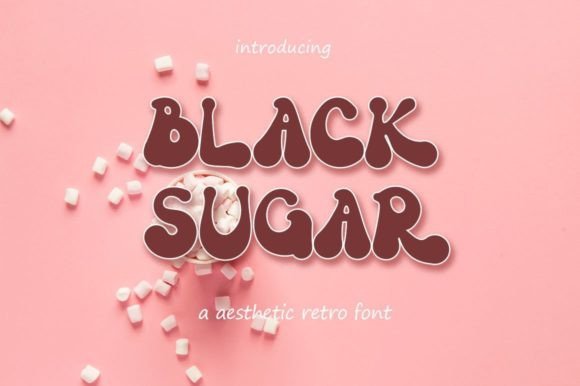
Step into a nostalgic wonderland with Black Sugar Font, a display font family that oozes vintage charm and modern elegance. Its bold, curved characters dance across your screen, evoking a sense of playfulness and fun. Let your imagination soar as you envision this font gracing your t-shirts, book covers, and animated cartoon titles.
Black Sugar Font is a creative's dream come true, perfectly suited for those who dare to embrace their retro side. Picture your designs adorned with this font, adding a touch of classic sophistication to your business cards and posters. With its extensive glyphs and ligatures, you'll have endless possibilities to express your unique style.
Transport yourself to a bygone era, where the allure of vintage signs captivates your senses. Black Sugar Font is your gateway to creating designs that evoke a sense of nostalgia and longing. Its bold and curved characters are reminiscent of hand-painted signs from a simpler time, adding a touch of authenticity to your creations.
Unleash your creativity with Black Sugar Font, the ultimate font for vintage enthusiasts and design mavericks. Its versatility knows no bounds, effortlessly adapting to a myriad of projects. Let your imagination run wild as you craft designs that speak volumes, capturing the hearts and minds of your audience.
Don't just settle for ordinary fonts. Embrace the allure of Black Sugar Font and embark on a design journey that leaves a lasting impression. Its vintage charm, modern flair, and endless possibilities will transform your creative vision into a masterpiece. Let your designs stand out from the crowd and make a bold statement with Black Sugar Font.